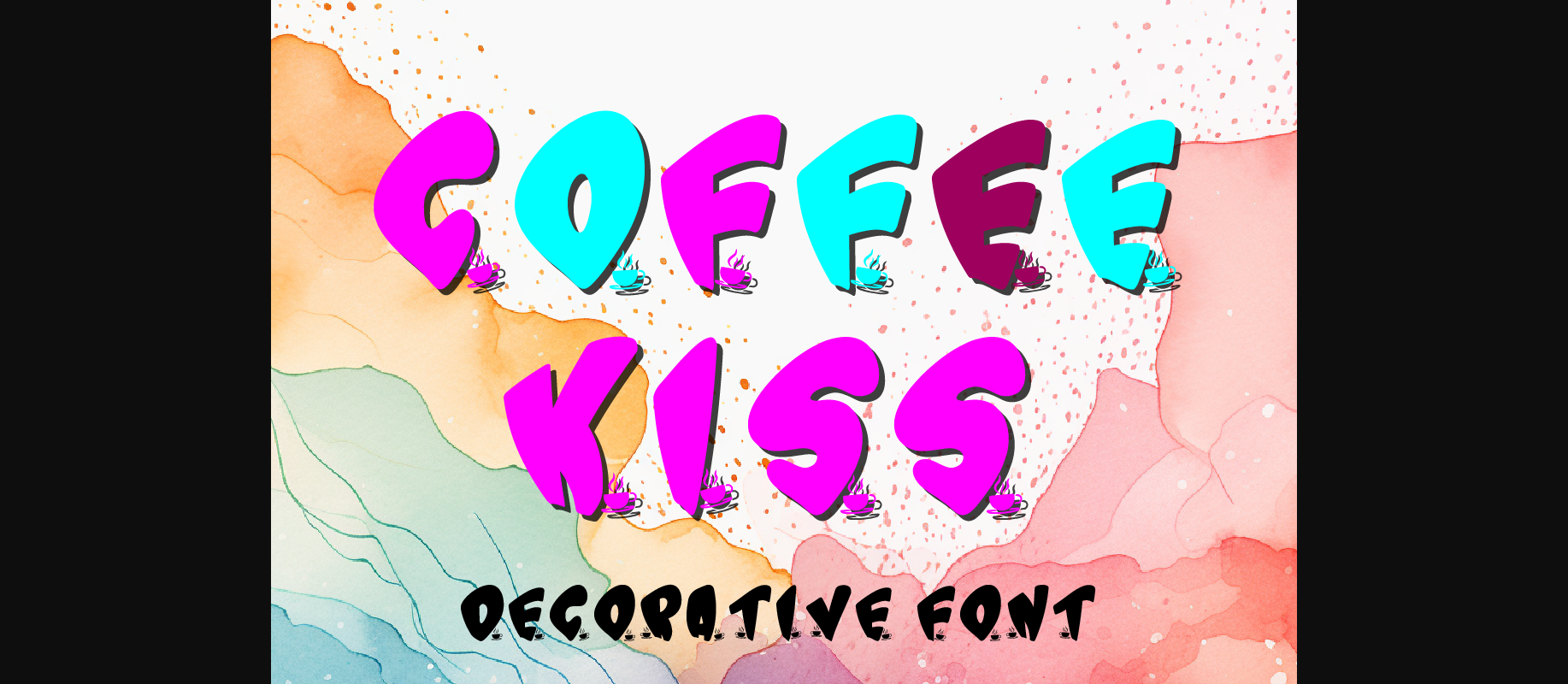
About Coffee Kiss Font
Introducing “Coffee Kiss Font” – a delightful cup of coffee-inspired pixel art style font that adds a touch of warmth and charm to your creative projects. With its set of 26 capital letters and 10 numbers (0-9), Coffee Kiss Font offers versatility for creative expression across various applications.
Whether you’re designing menu boards for a cafe, crafting social media posts for a coffee shop, or enhancing your personal blog, Coffee Kiss Font can be seamlessly integrated into every field of art. Its playful and unique design evokes the cozy atmosphere of a coffeehouse and adds a special touch to your work.